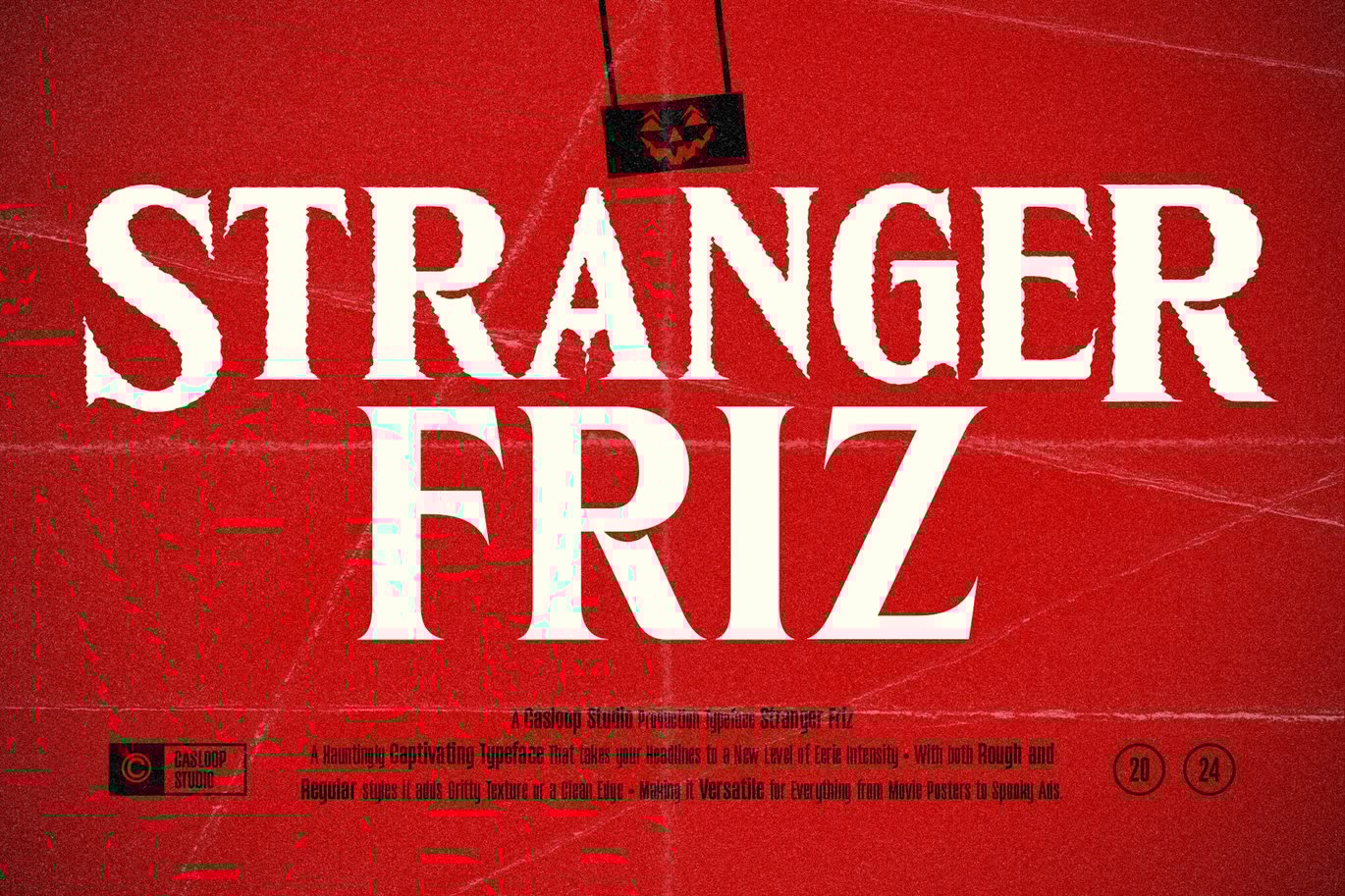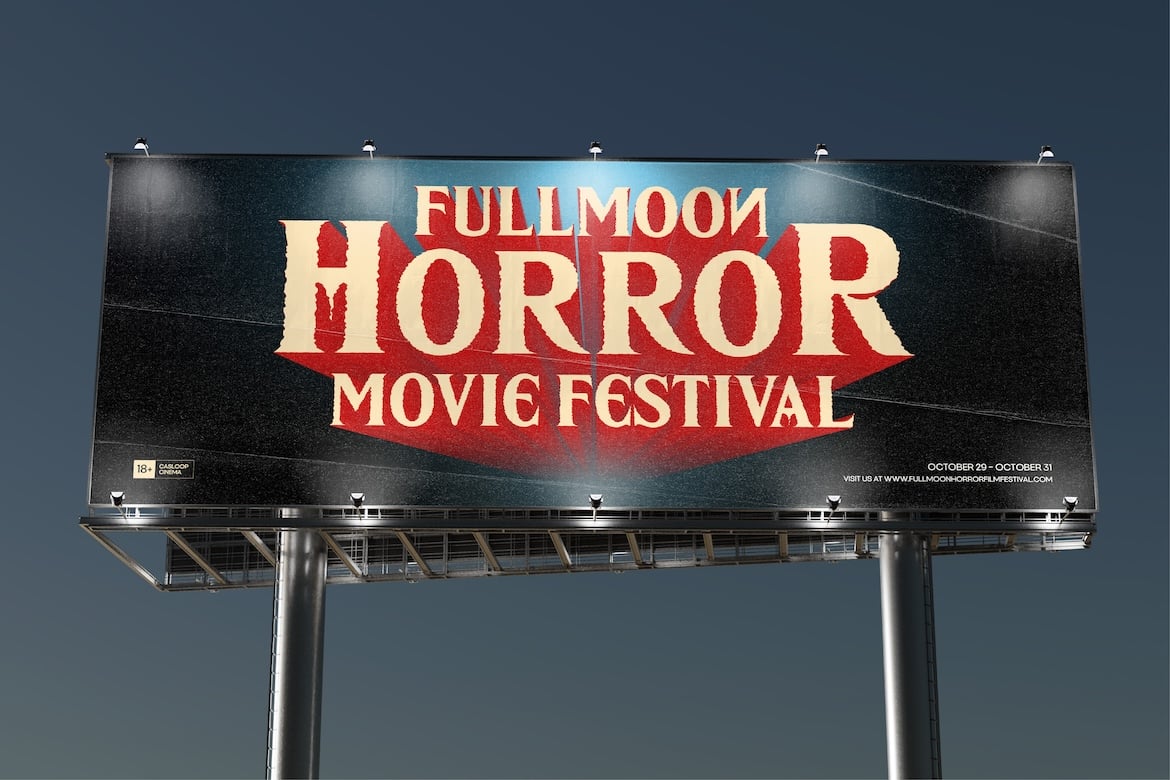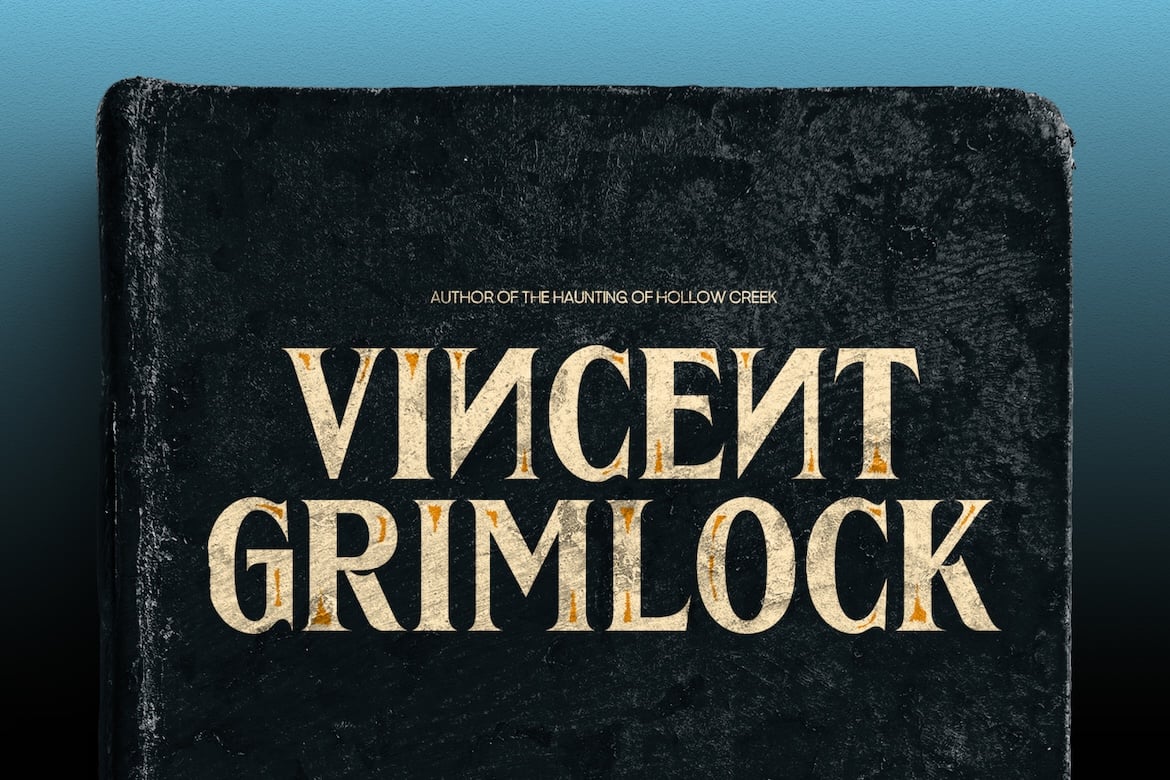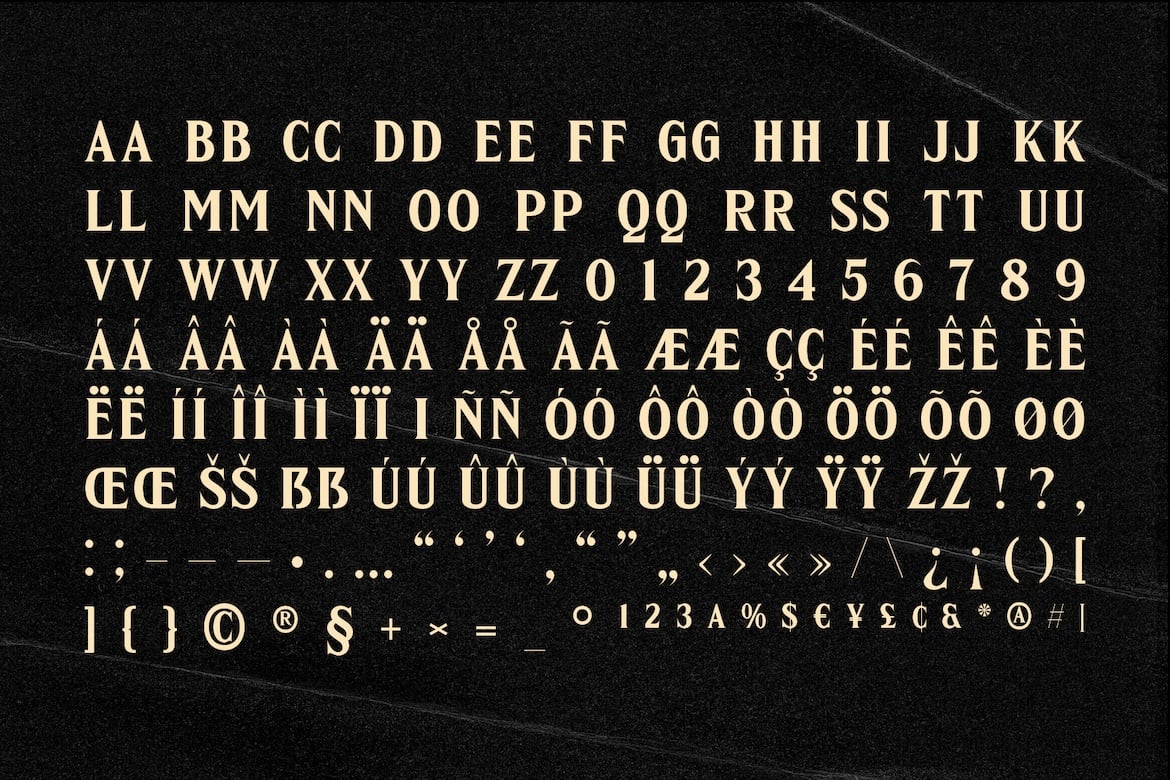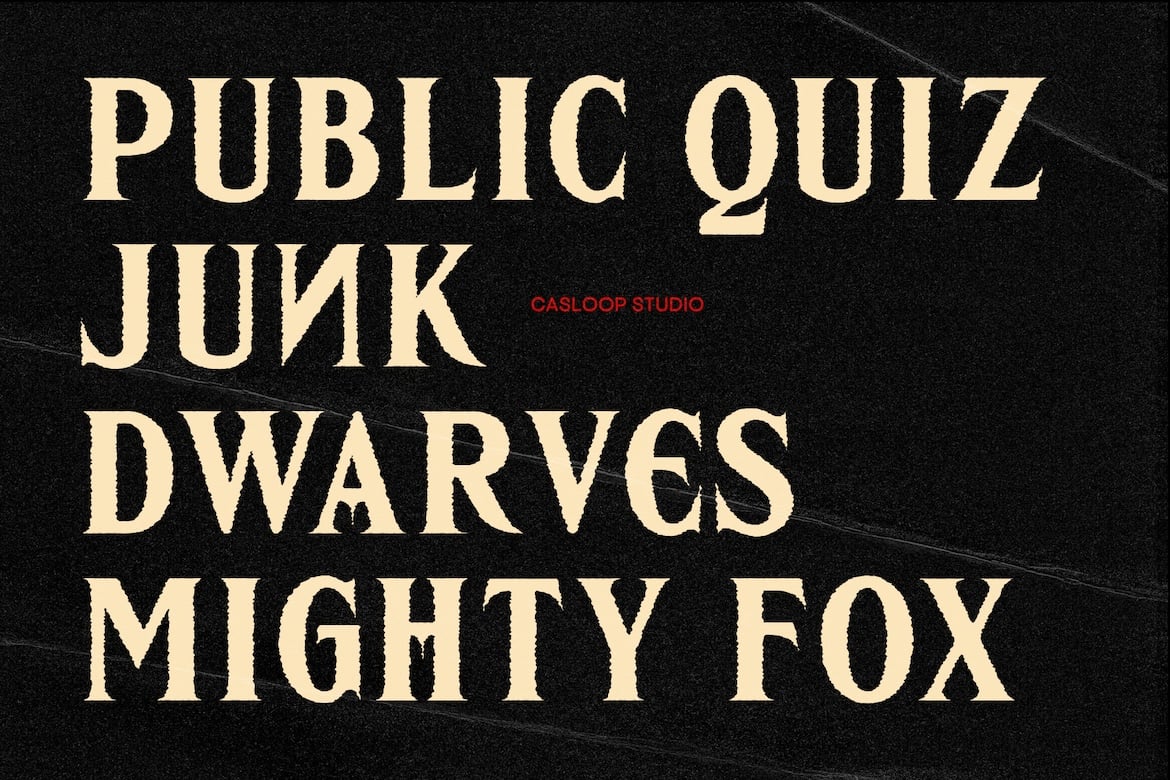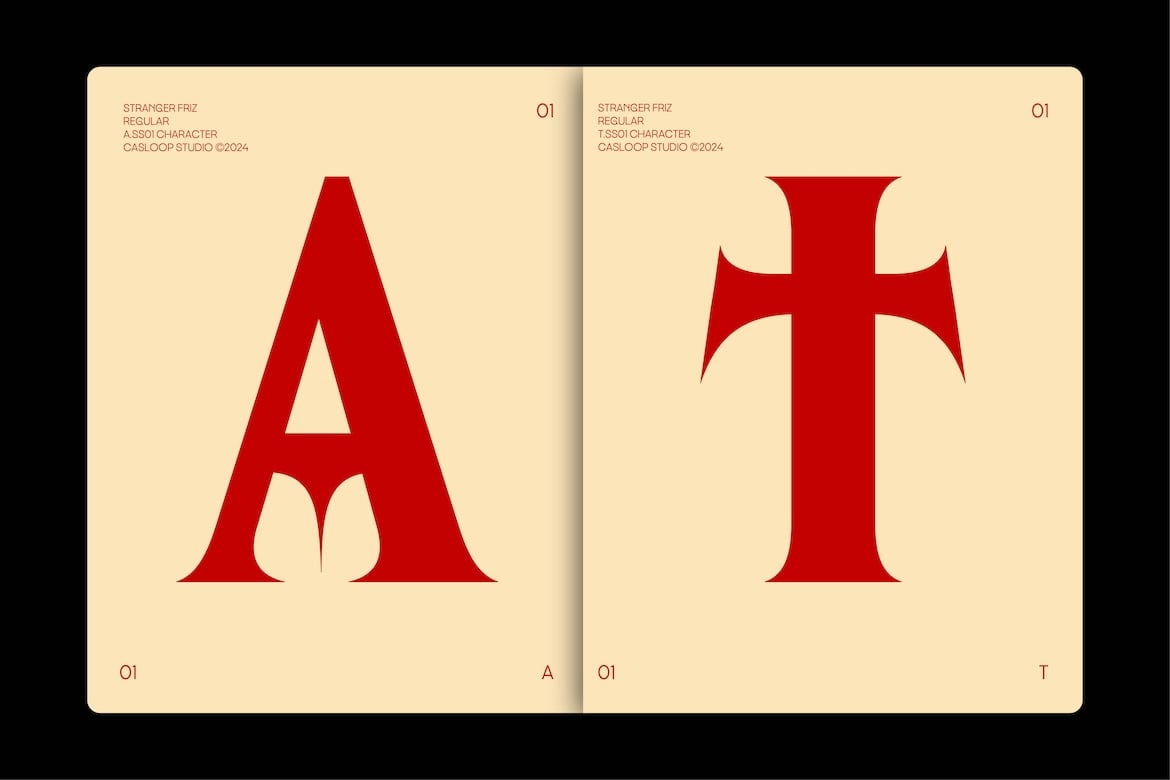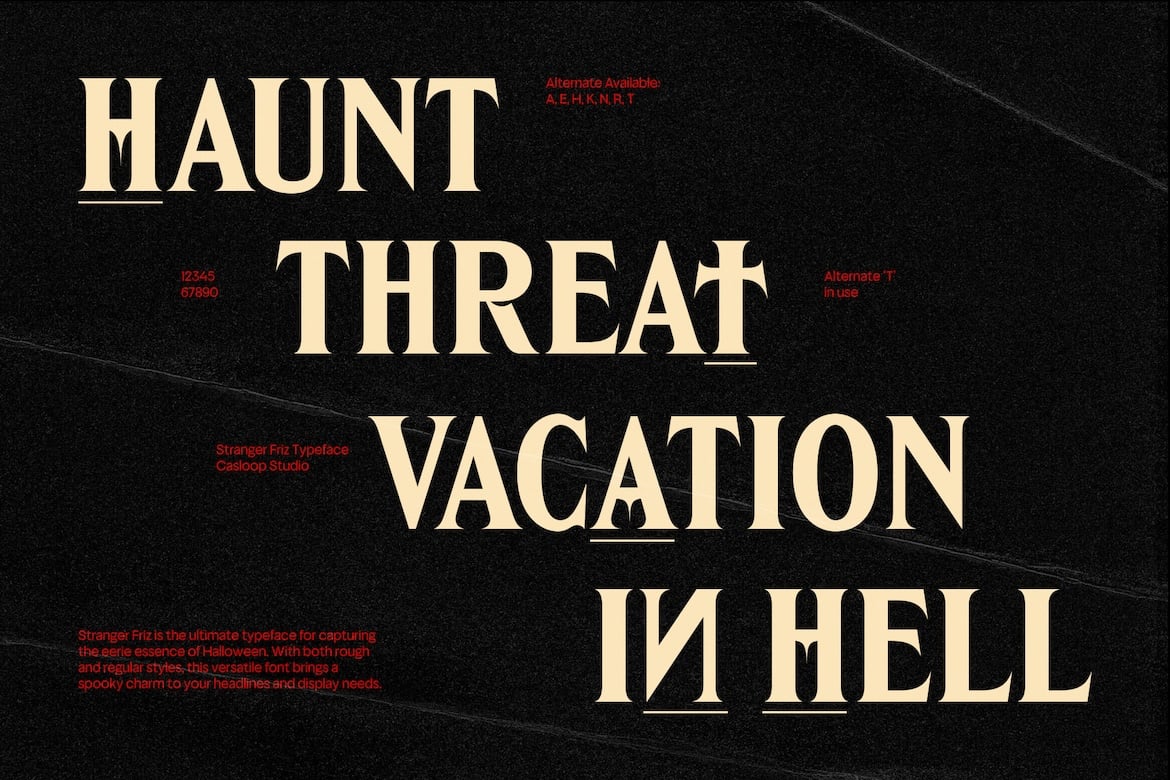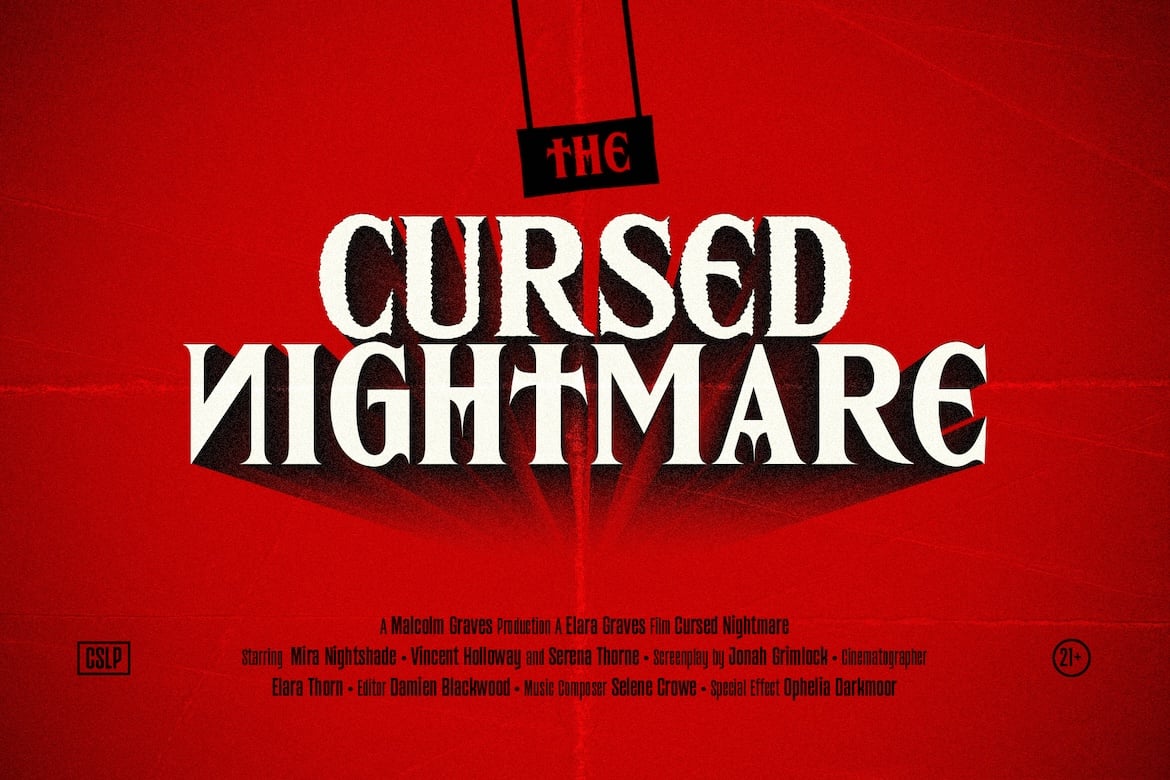
Stranger Friz – Halloween Grunge Creepy Movie Font
Meet Stranger Friz, the ultimate display serif typeface that captures the essence of autumn nights and the thrill of horror. Perfect for all your spooky design needs, this font is your go-to choice for any project that craves a touch of terror.
With its unique grunge style, Stranger Friz blends classic elegance with a fearsome twist. This expressive typeface stands out with its strong, bloody strokes, evoking a sense of eerie nostalgia. Its decorative elements conjure images of haunted houses and chilling tales, making it ideal for branding, movie posters, and digital media visuals.
What sets Stranger Friz apart is its originality. Unlike typical fonts, it effortlessly balances legibility with a retro, spooky vibe, making it perfect for everything from a zombie poster to motion graphics and spooky web designs. Whether you’re crafting a chilling movie title or enhancing your nightwear packaging, this font guarantees your message will resonate with a sense of eerie excitement.
With its single weight, Stranger Friz offers versatility for various applications. Use it for text animations, logos, and branding that demand attention. Its fearsome character design adds depth and personality, ensuring your projects leave a lasting impression.
- Uppercase & lowercase
- Numbers and punctuation
- Ligatures & Alternates